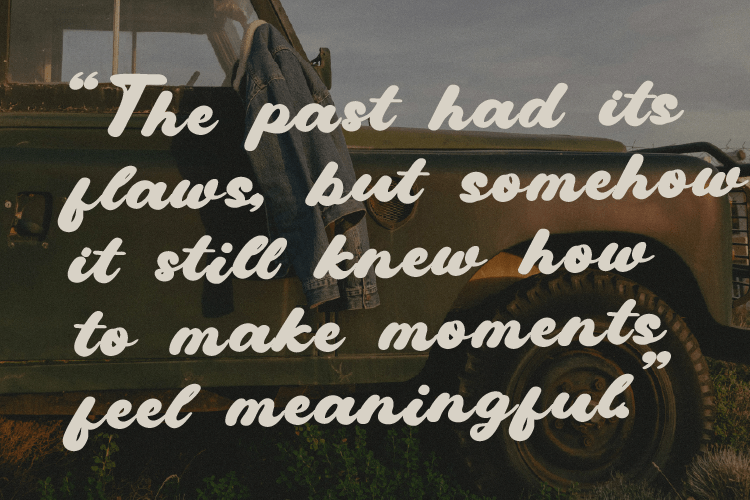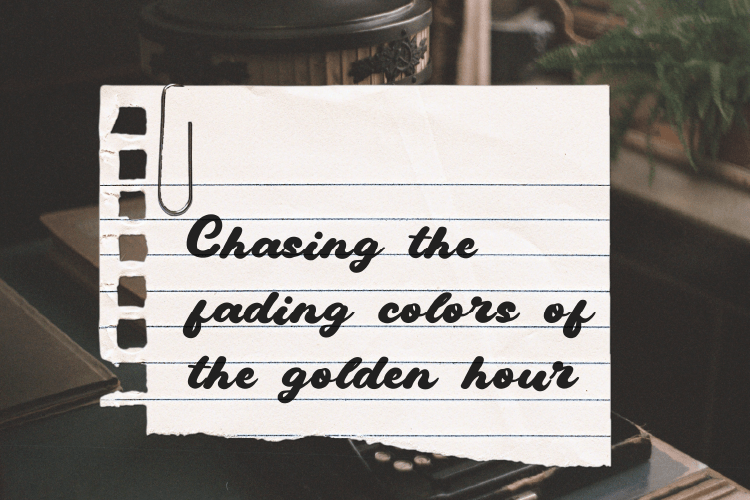
Getsclo Script Font
Getsclo Script Font – Introduce your latest design project with Getsclo Script, a bold, smooth, and charming vintage retro script font. Inspired by classic storefront signage and mid-century typography, Getsclo Script brings a warm, nostalgic, and authentic feel to your creative endeavors. Its flowing curves and strong character presence make it highly legible while effortlessly grabbing attention.
Whether you are designing a logo for an artisanal bakery, crafting eye-catching window displays, or creating vintage-inspired food packaging, Getsclo Script delivers a professional, timeless, and elegant aesthetic.